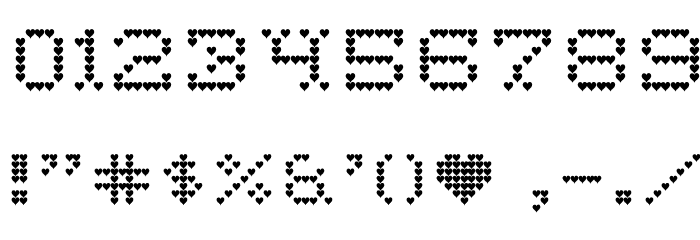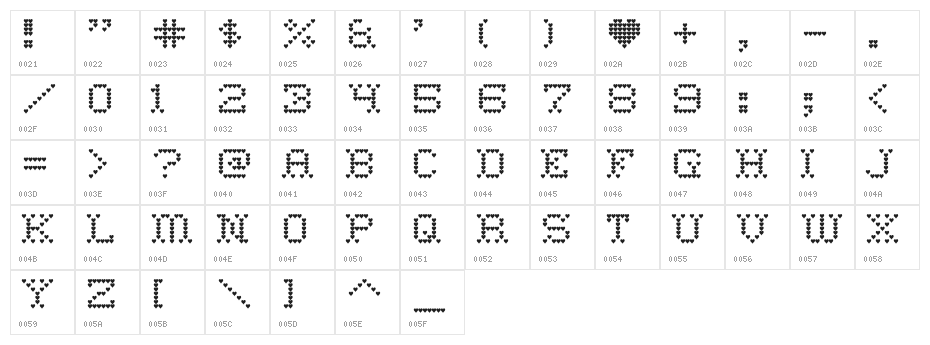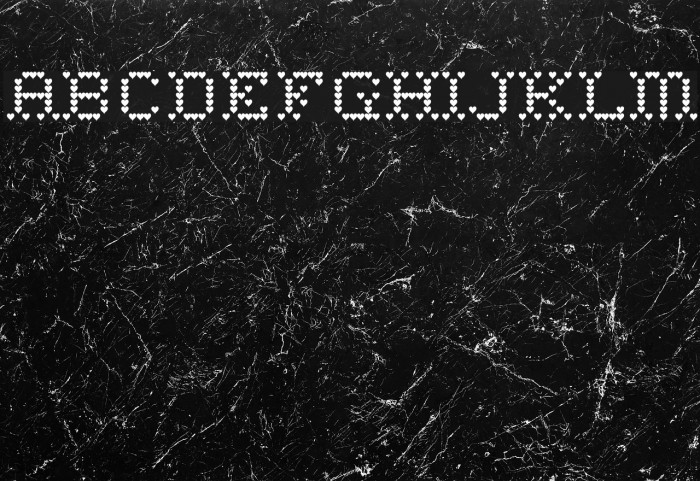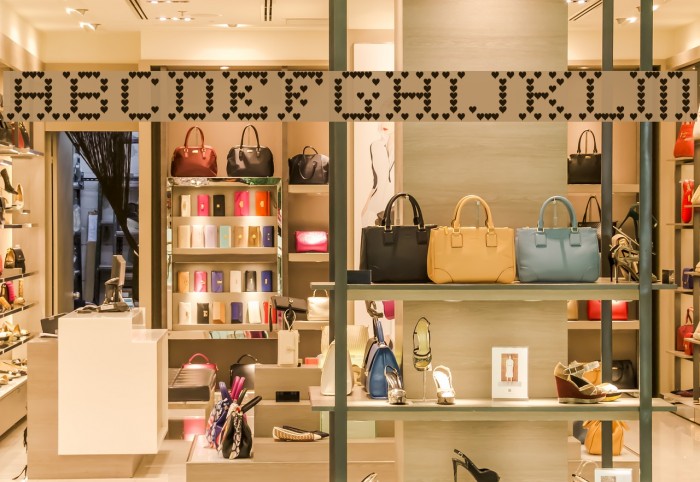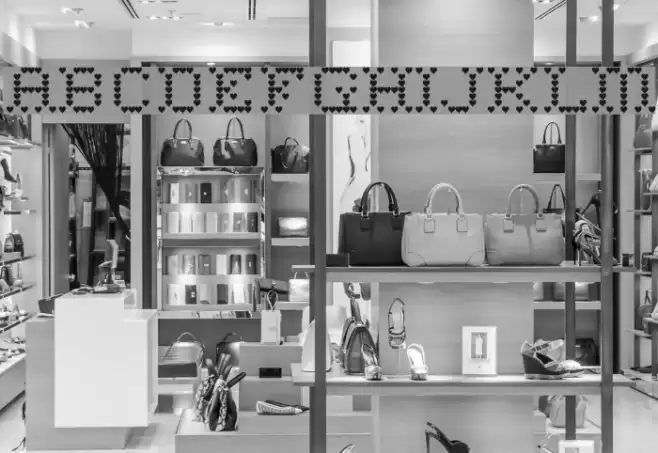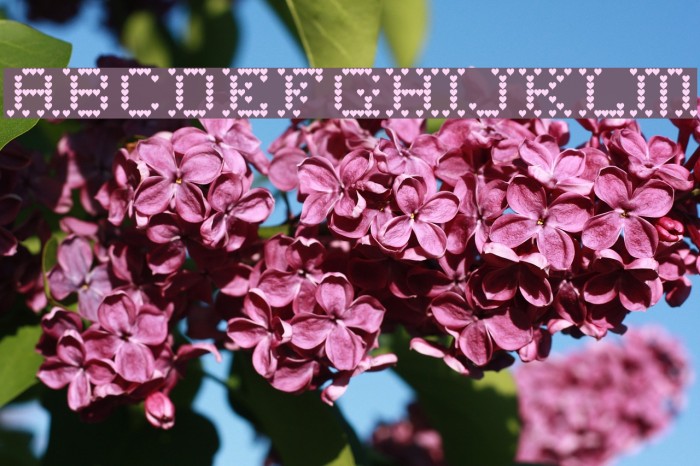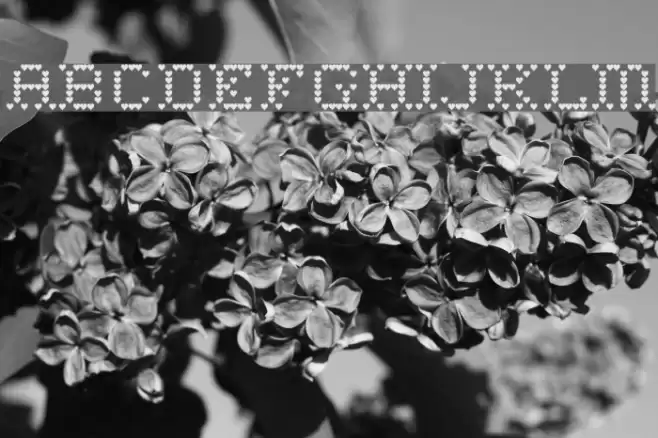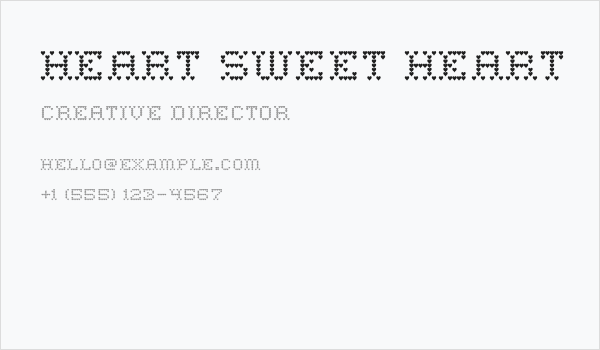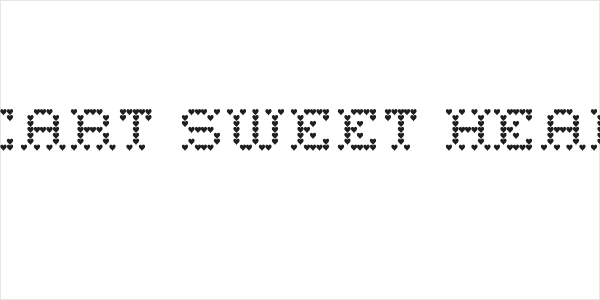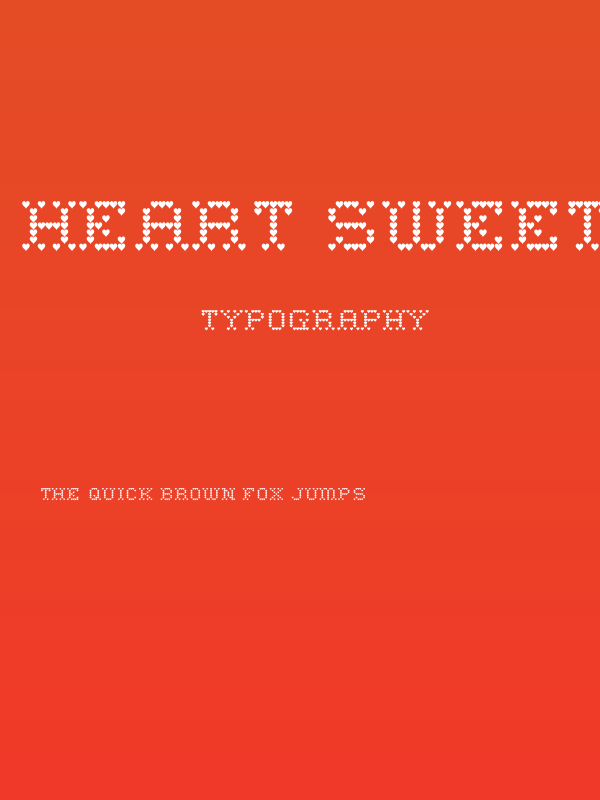
Heart Sweet Heart Font
Heart Sweet Heart Description
This font features a playful and decorative style, with each character composed of small heart shapes. The design is consistent across uppercase and lowercase letters, as well as numbers and special characters, creating a cohesive and charming appearance. The heart motif adds a whimsical and romantic touch, making it ideal for projects that require a fun and lighthearted aesthetic. The characters are evenly spaced, ensuring readability while maintaining the decorative theme. This font is perfect for creative projects that aim to convey warmth and affection.
Use CaseHeadlines, Logos, Invitations
Proposed ProjectsPerfect for Valentine's Day cards, wedding invitations, playful branding, and children's book covers.